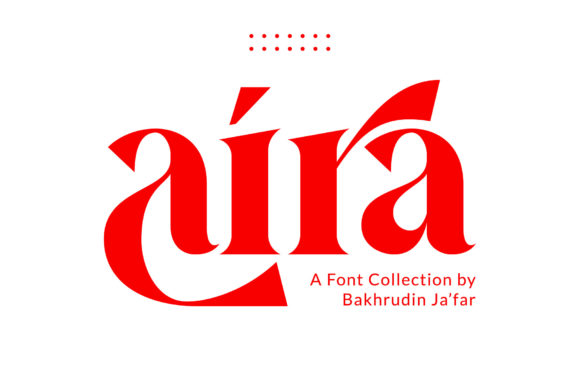
Introducing Aira, the captivating serif font family that empowers you to make a bold, unique statement in your design journey. With its meticulously crafted curves and striking glyphs, this font is tailor-made for modern designers seeking elegance, clarity, and a contemporary edge. Discover the allure of Aira, where conventional sophistication meets the innovative spirit of the contemporary era.
Embrace the versatility of Aira, a font that effortlessly elevates magazine layouts, articles, and quotes to new heights of visual intrigue. Its meticulously designed ligatures add a touch of flair, while the PUA encoding ensures effortless access to a world of glyphs and swashes that unlock infinite creative possibilities. Explore the dynamic range of Aira's applications, from sturdy company logos that exude strength and confidence to captivating poster designs that ignite imagination.
Immerse yourself in the allure of Aira's carefully curated lowercase letters, each one a work of art that adds a touch of personality and charm to your creations. Aira is the key to unlocking a world of elegant typography, where every letter tells a story, every word captivates, and every sentence commands attention. Experience the transformative power of Aira as your design takes flight, exceeding boundaries and leaving an indelible mark.
Unleash the power of Aira today and embark on a visual odyssey like no other. Let your designs soar with the confidence of a trendsetter, knowing that Aira is your trusted companion, guiding you towards excellence. Embrace the infinite possibilities that await you, where creativity knows no limits, and your vision takes center stage. Aira, the font of innovation, awaits your command.